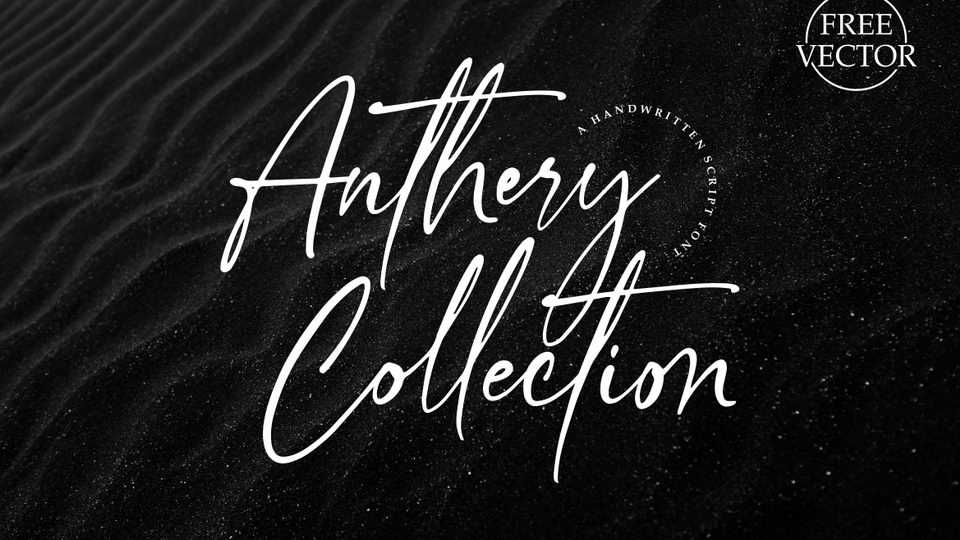
Download Anthery Collection font, a stylish signature script. Anthery Collection font look natural, classic and elegant, very suitable to make a branding, magazine, fashion, quotes, logo and other.
Designer: Nur Kholis